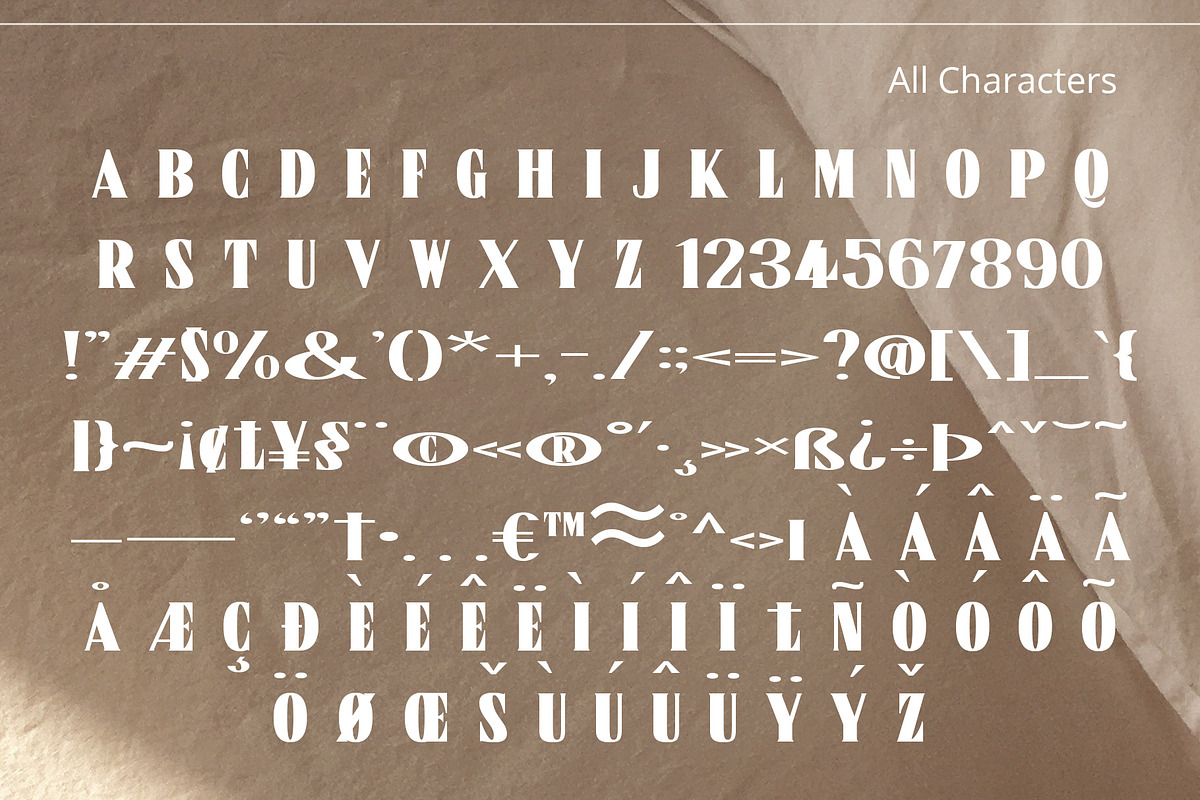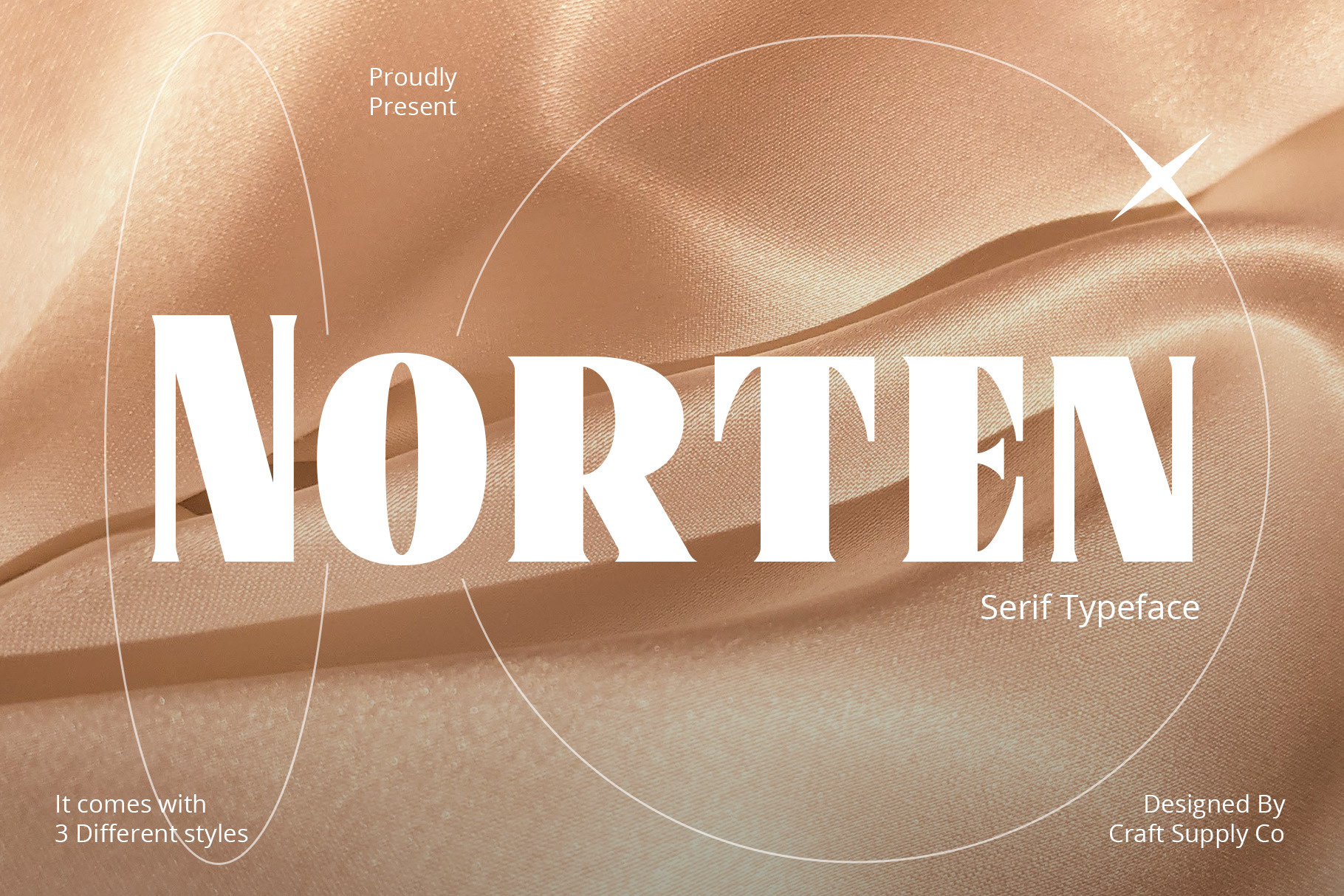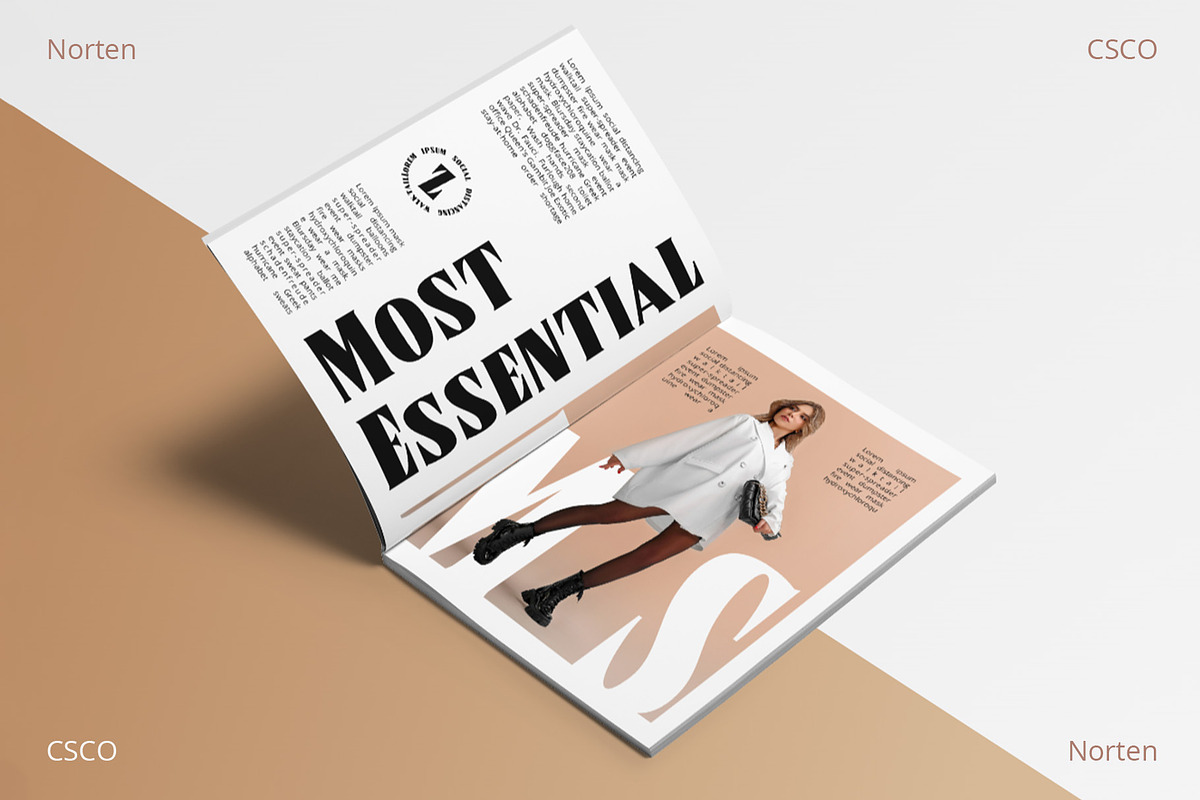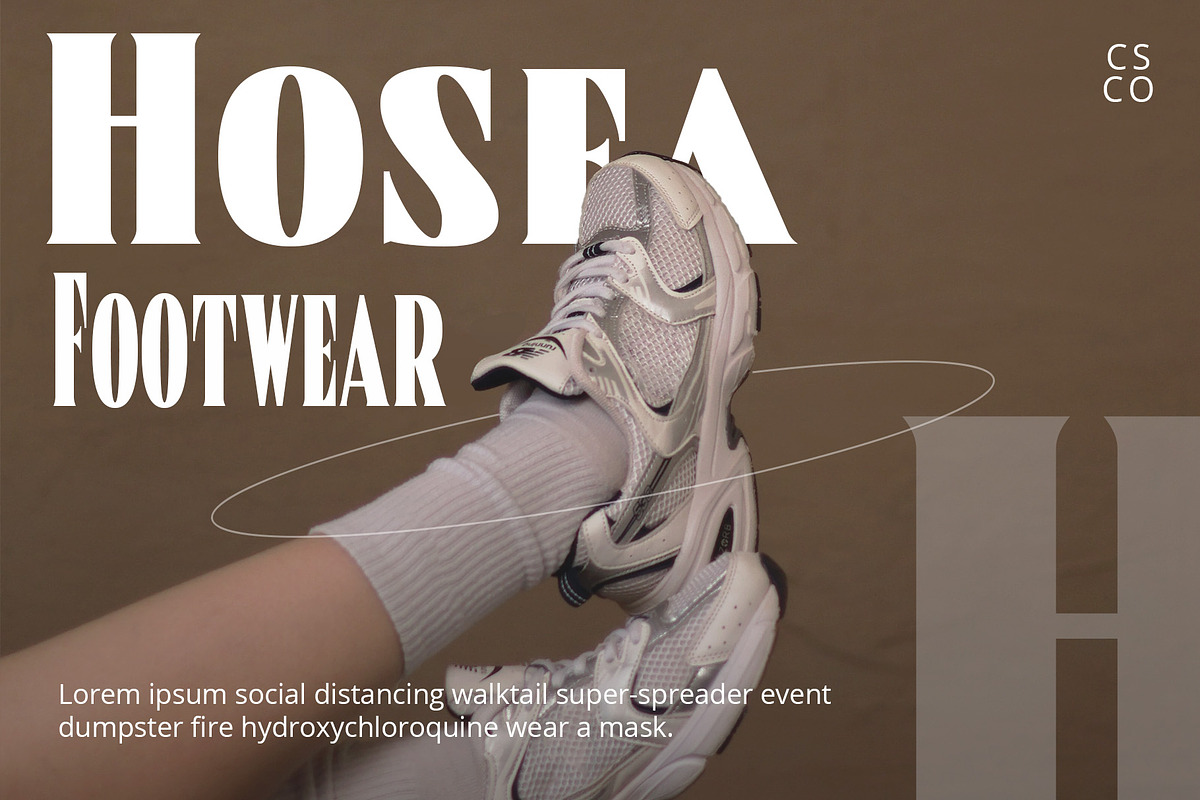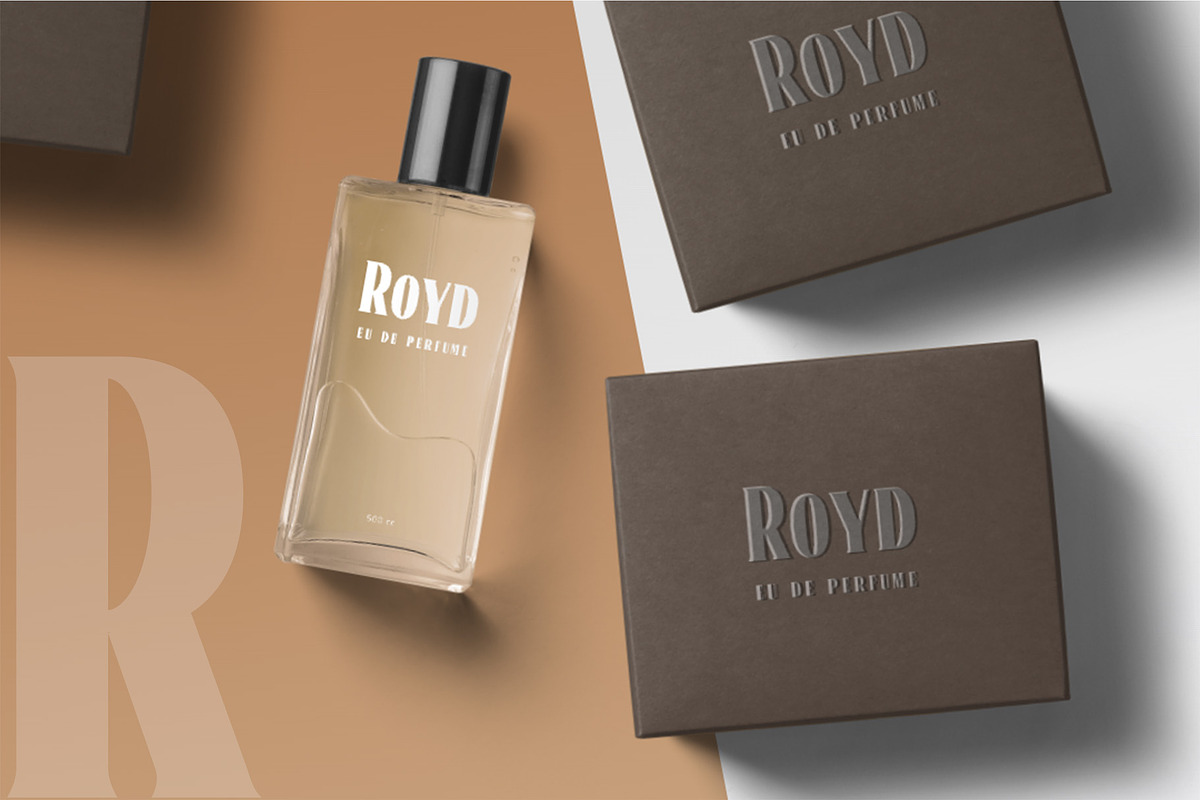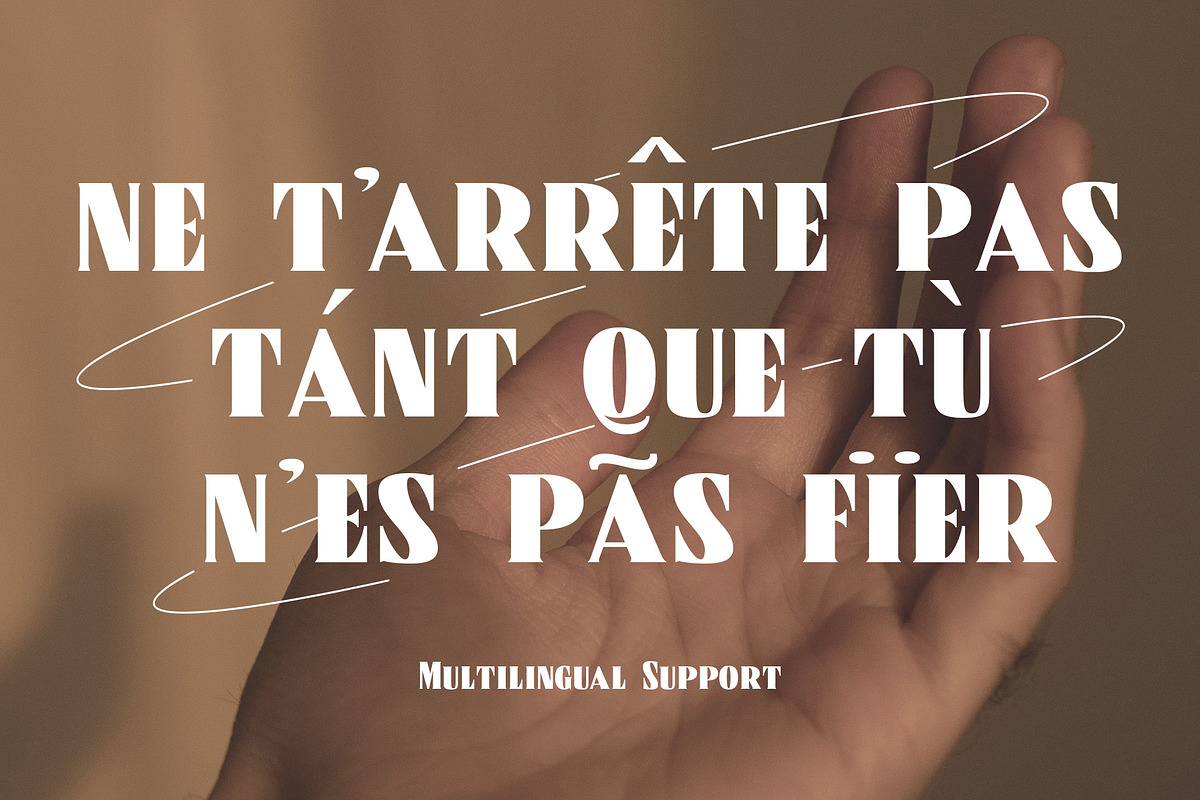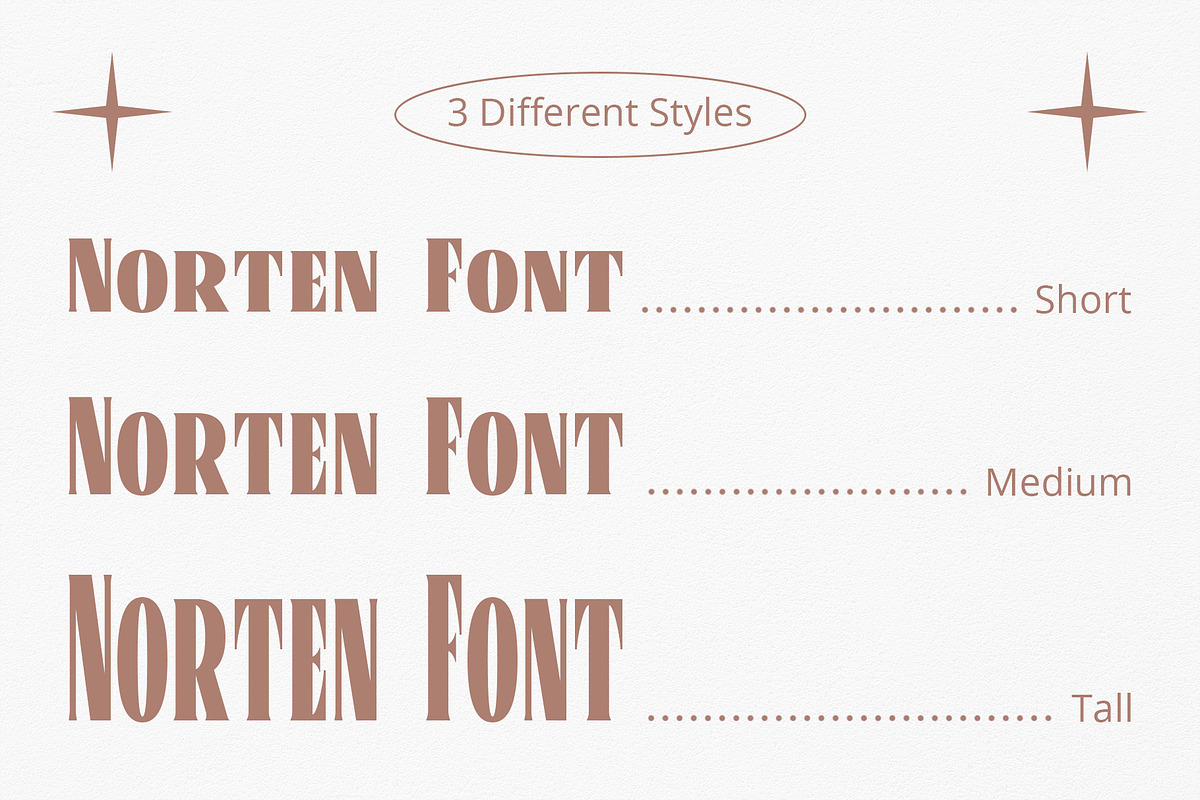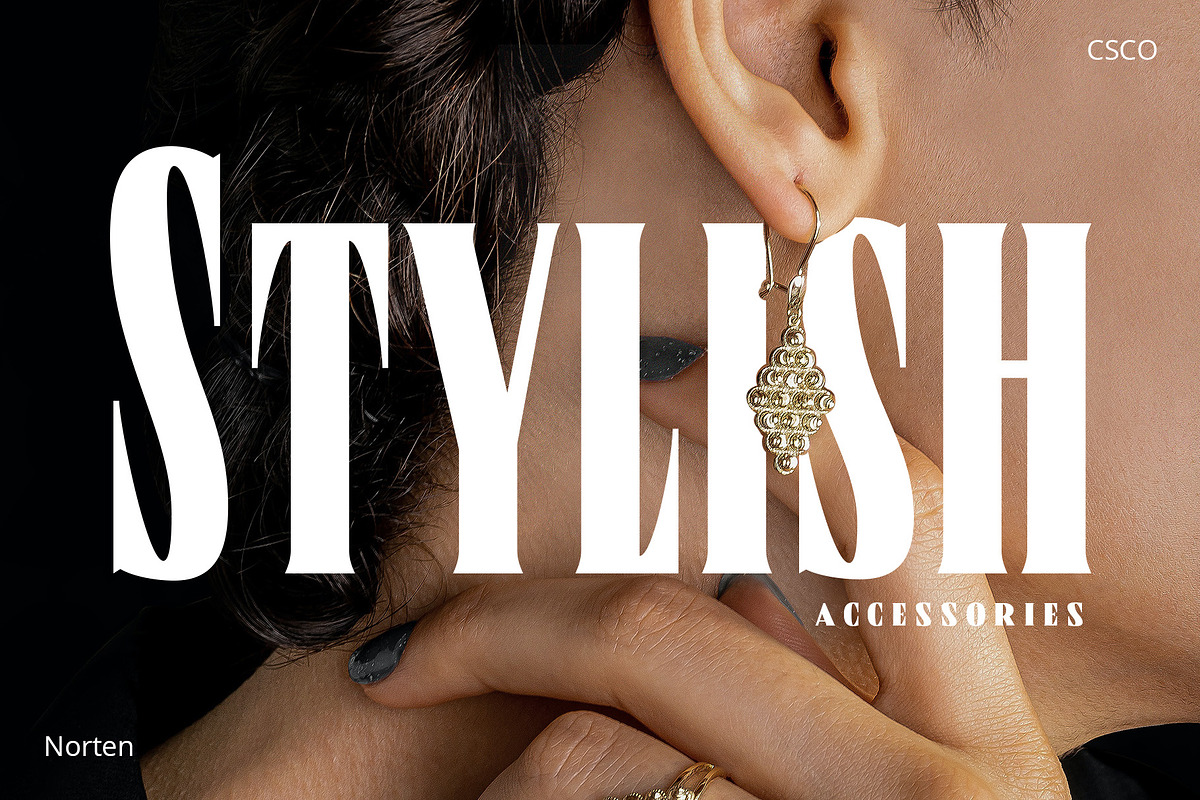
Norten – Serif Typeface
Introducing Norten Serif Typeface
First and foremost, Norten Serif Typeface is a classic serif typeface. It stands out with its clean, all-caps design. Significantly, this font exudes a sense of versatility, making it a staple for design needs.
Design and Usability
Subsequently, its design offers a seamless balance, fitting for both print and web. Hence, Norten adapts effortlessly to diverse design challenges, becoming an essential in your creative toolkit.
Readability and Aesthetics
Moreover, the font is crafted to prioritize readability. Its distinct serifs enhance character separation. Thus, it ensures outstanding readability, even at smaller sizes.
Flexibility
In addition, Norten’s flexibility is remarkable. Ideal for logos, headings, and expansive branding projects, it offers endless possibilities. Consequently, designers frequently select it for its universal appeal.
Accessibility
To conclude, its straightforward nature makes Norten incredibly accessible. As a result, it caters to a broad audience, reinforcing its user-friendly nature. This makes Norten not just a typeface, but a dependable tool for effective communication.
- Norten Medium
- Norten Short
- Norten Tall